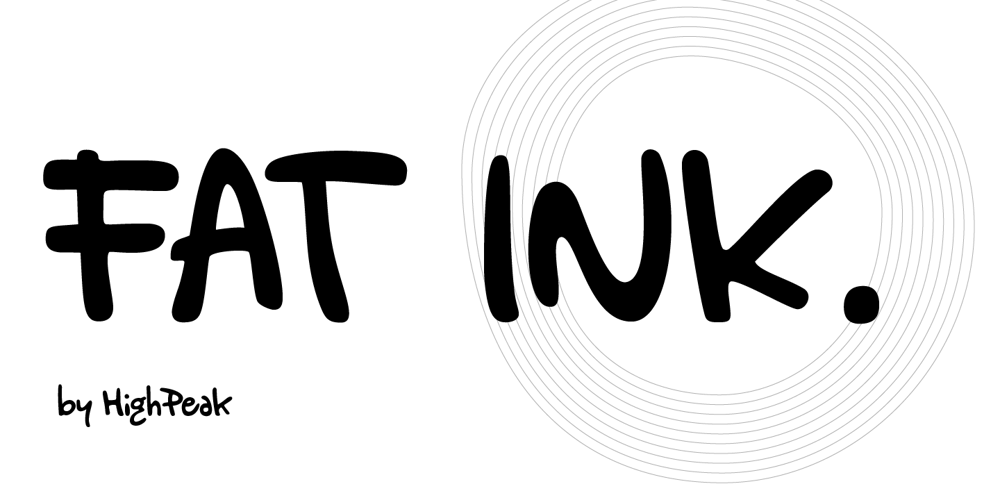
Fat Ink
Fat Ink font
Fat Ink Font Family was designed by Francesco Franciosi and published by High Peak. Fat Ink contains 1 styles and family package options. This handwritten font is as juicy as the strokes from a fat marker! Unpredictable but harmonious, the lines and shapes give this font a fun, funky vibe. Perfect for creating logos, charts, pricing, and more.Full uppercase and lowercase, it supports several languages, lots of discretionary ligatures, and alternatives that combine with each other.Have fun!High Peak